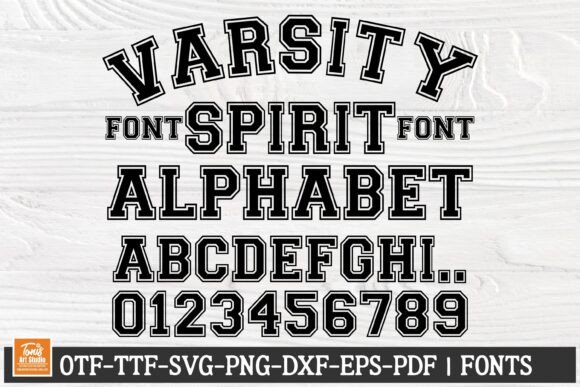
Varsity Spirit Font
Varsity Font SVG with bold varsity letters, perfect for college alphabet projects, monogram SVGs, and sports font designs. Includes OTF, TTF, SVG, PNG, EPS, and PDF files. Ideal for Cricut projects, school spirit designs, jerseys, and athletic themes. This varsity typeface is great for cutting machines, graphic design, team logos, and custom DIY projects. Compatible with Adobe Illustrator, Photoshop, Canva, and more.